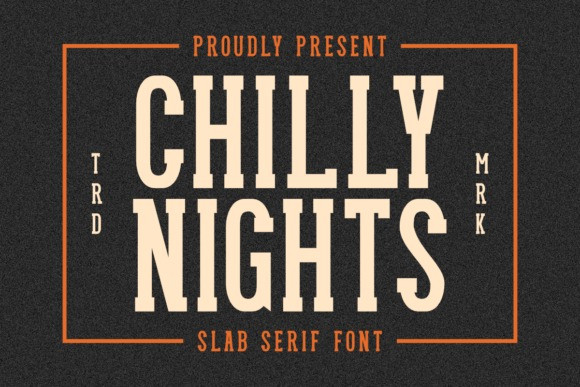
Chilly Nights Font
Chilly Nights Font is a bold and stylish slab serif font that blends vintage charm with modern strength. With its sturdy serifs and tall letterforms, this typeface is designed to make a strong impression on any project. Perfect for Print On Demand (POD) creations such as t-shirts, mugs, posters, and tote bags, it also shines in film titles, branding, packaging, and editorial design.
Its versatile look makes it an excellent choice for crafting projects, Cricut and Silhouette cutting, logo design, and cinematic visuals. Whether you’re creating bold headlines, vintage-inspired graphics, or professional marketing materials, Chilly Nights delivers both impact and style.